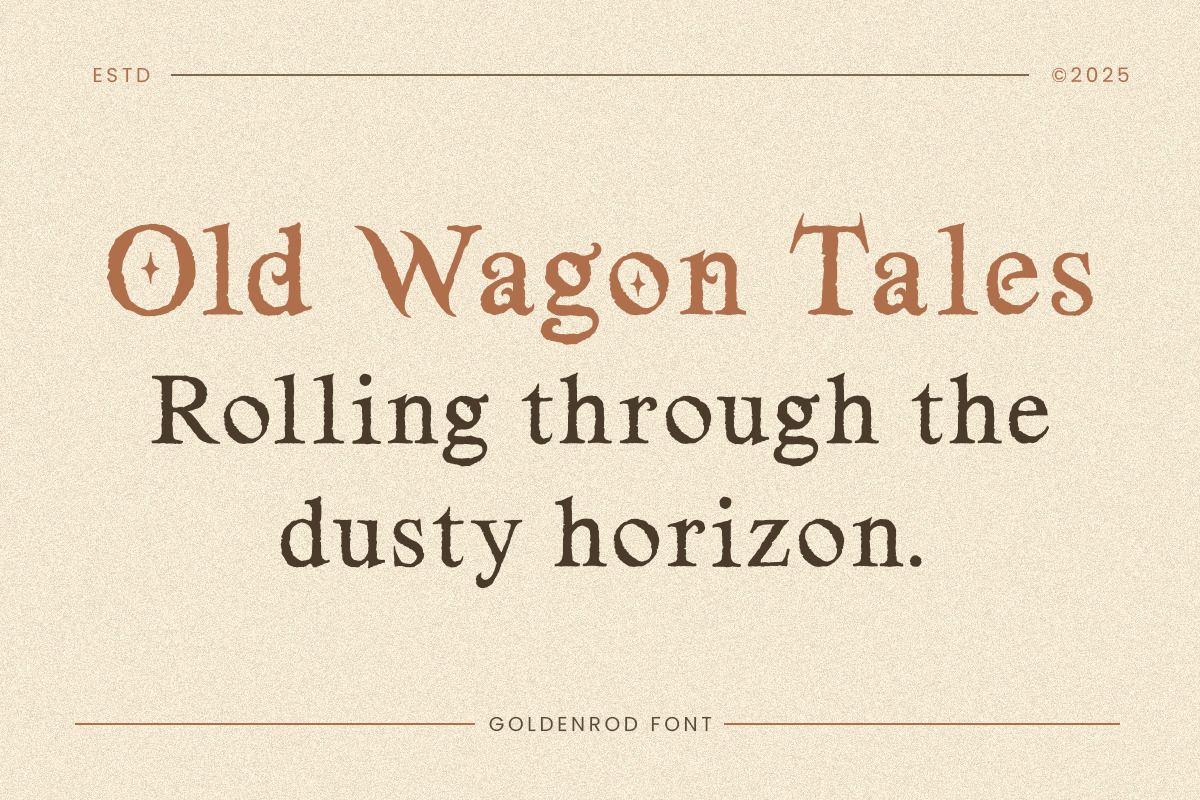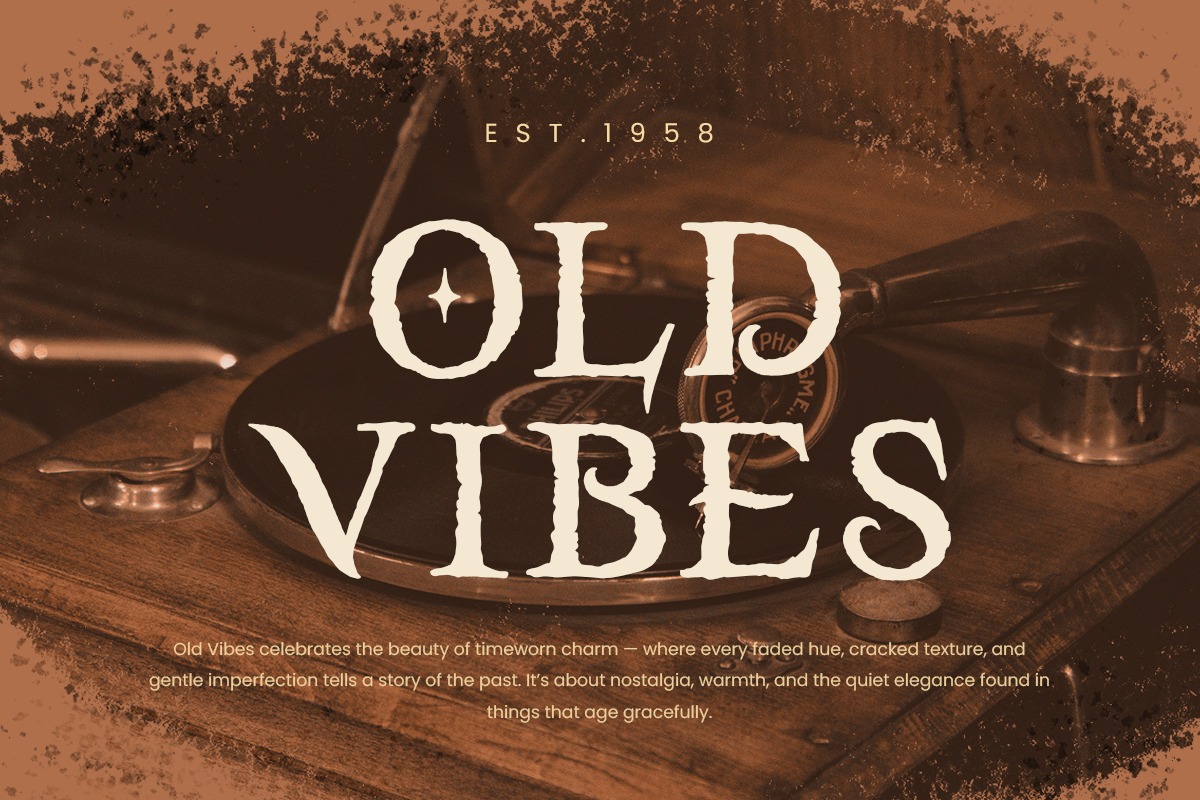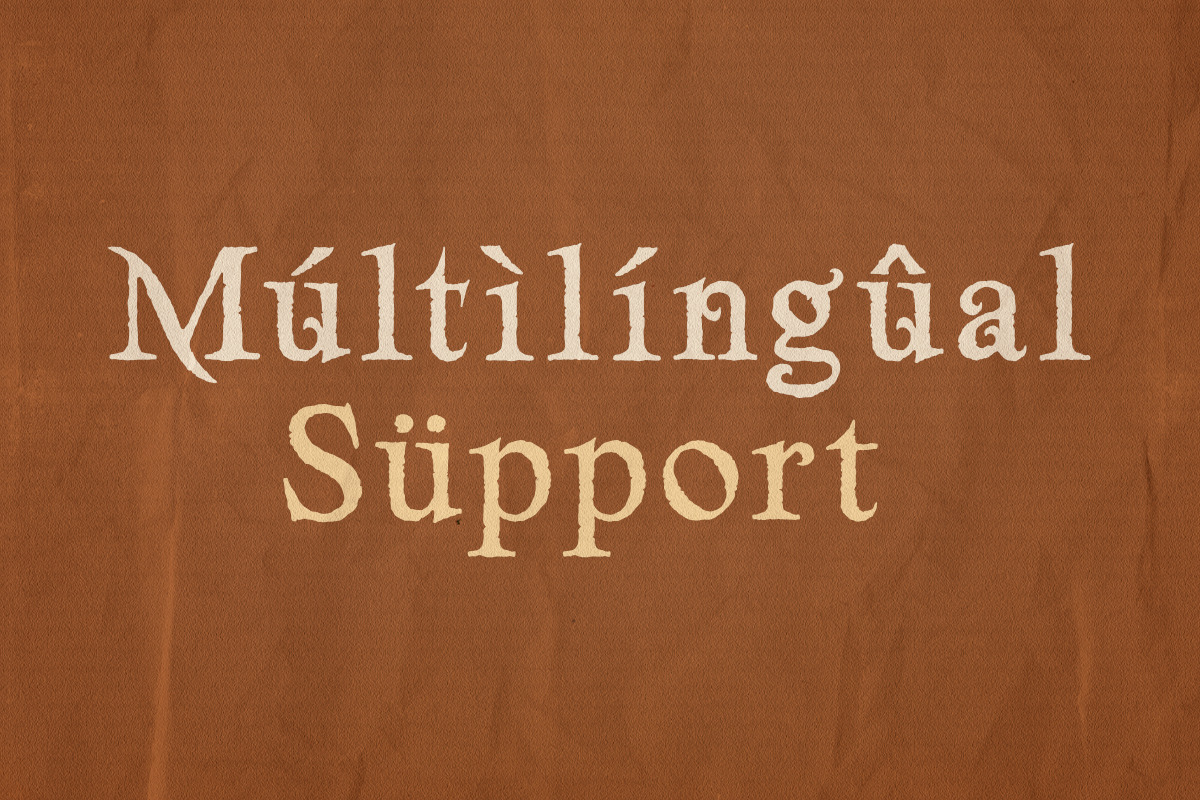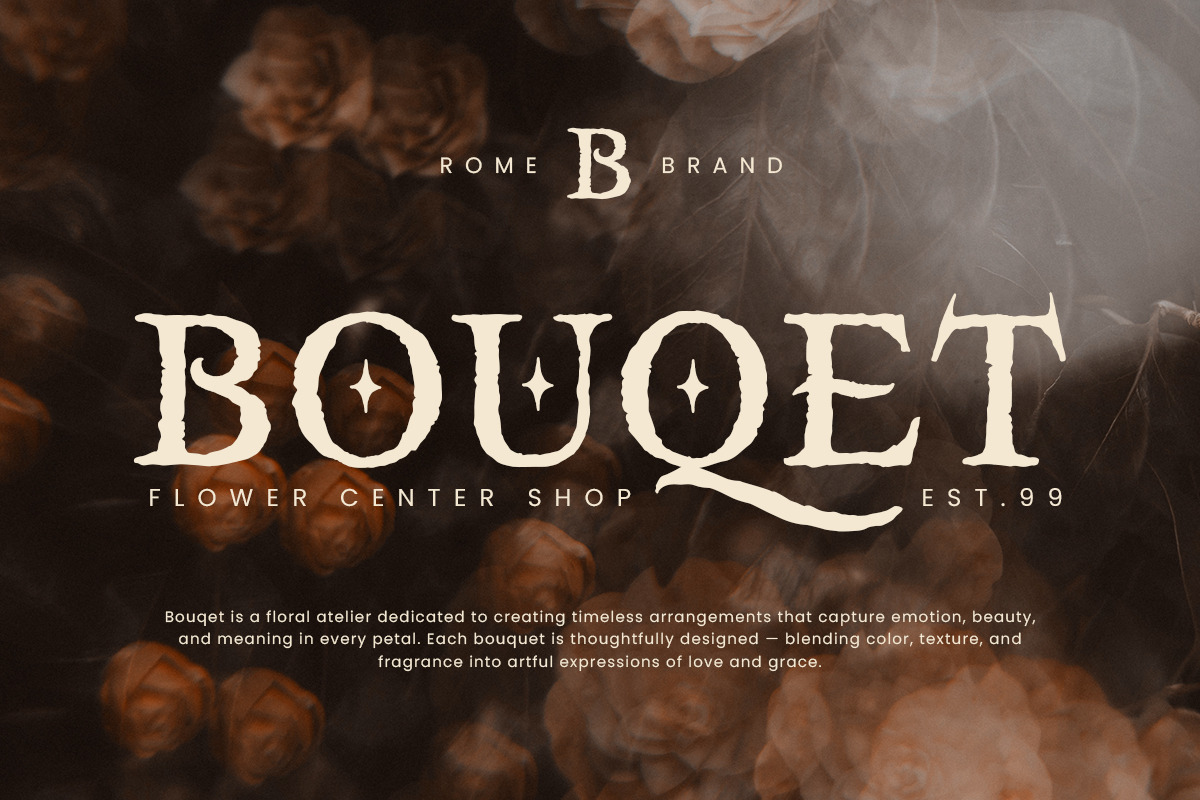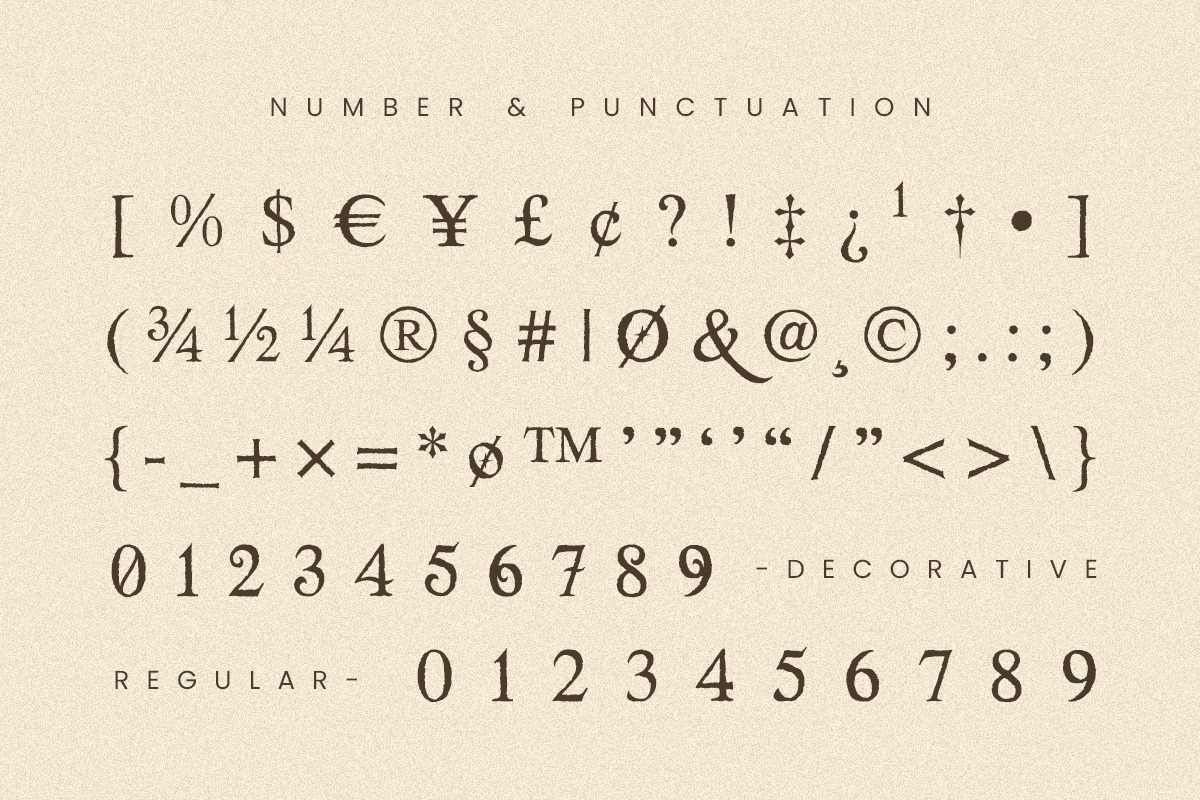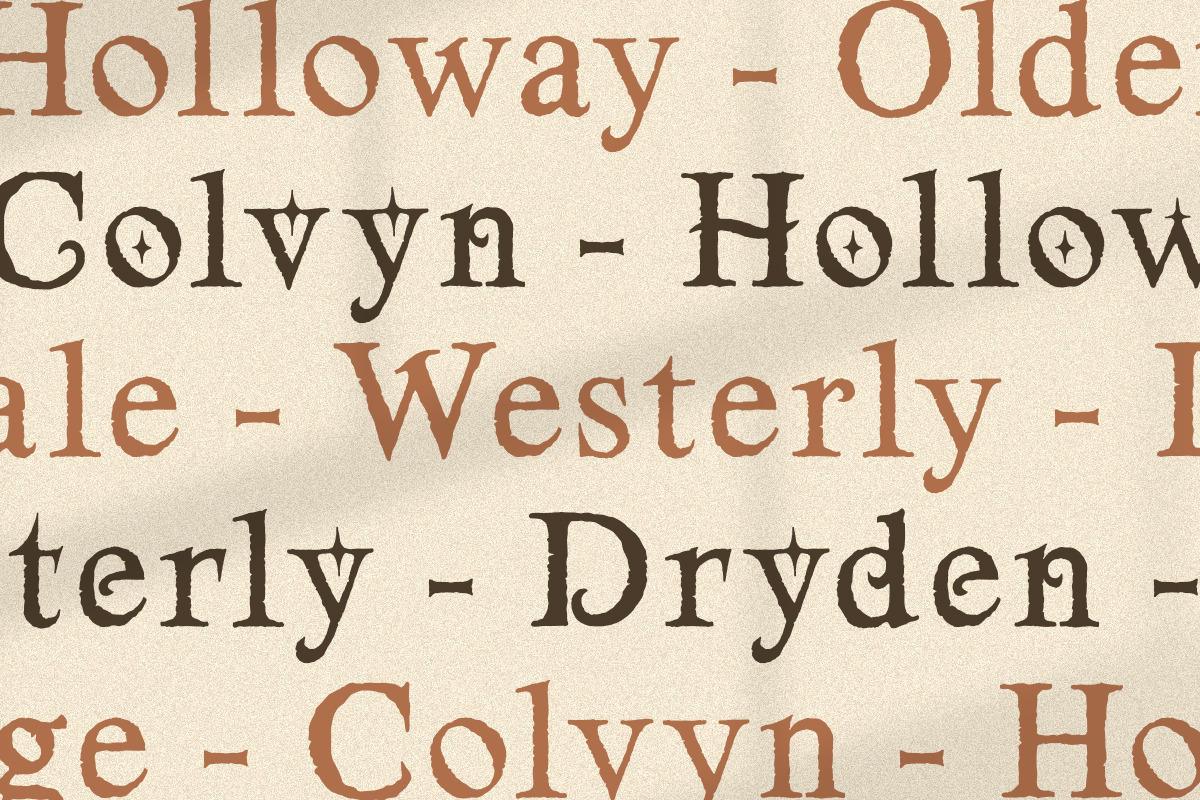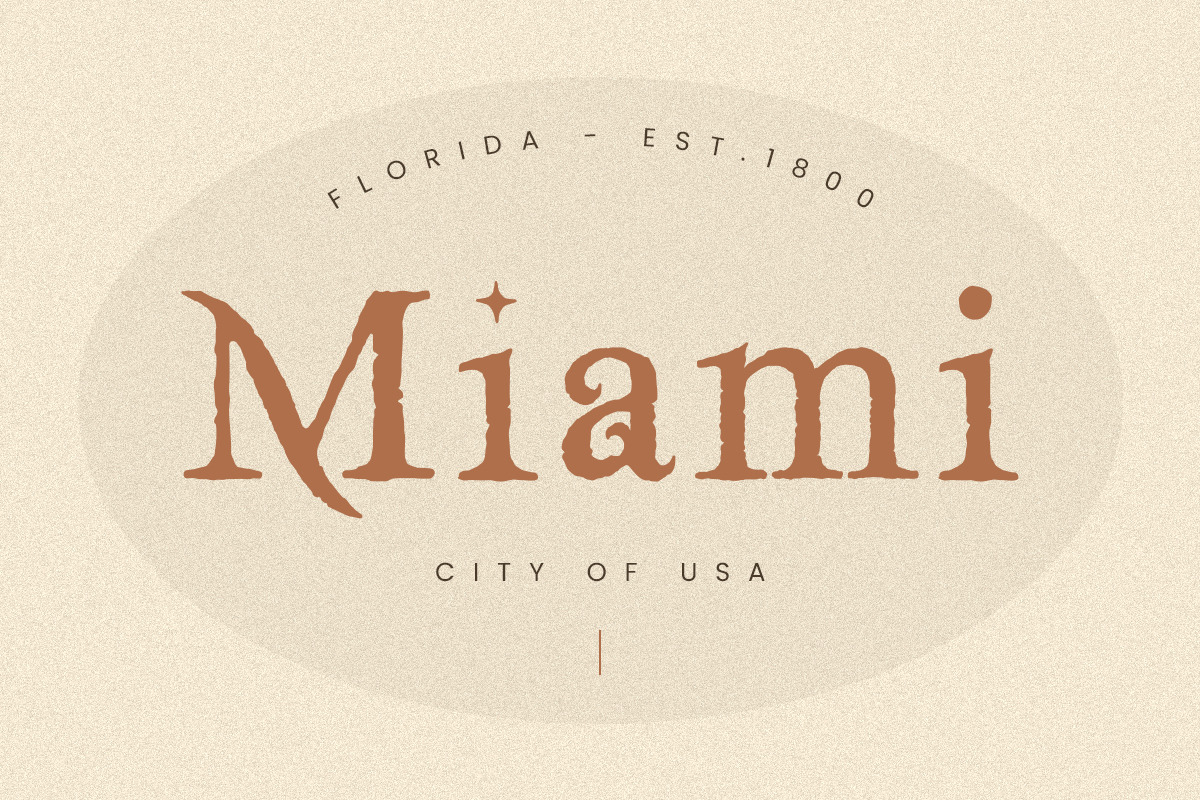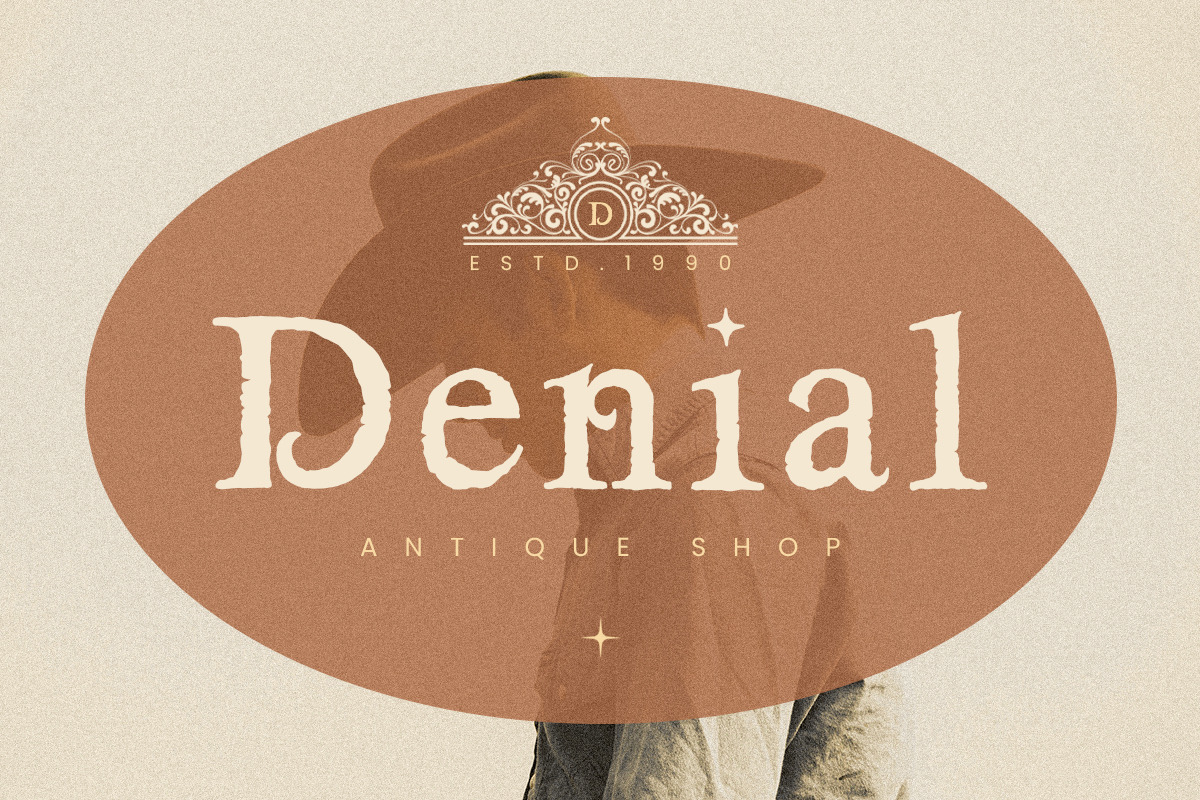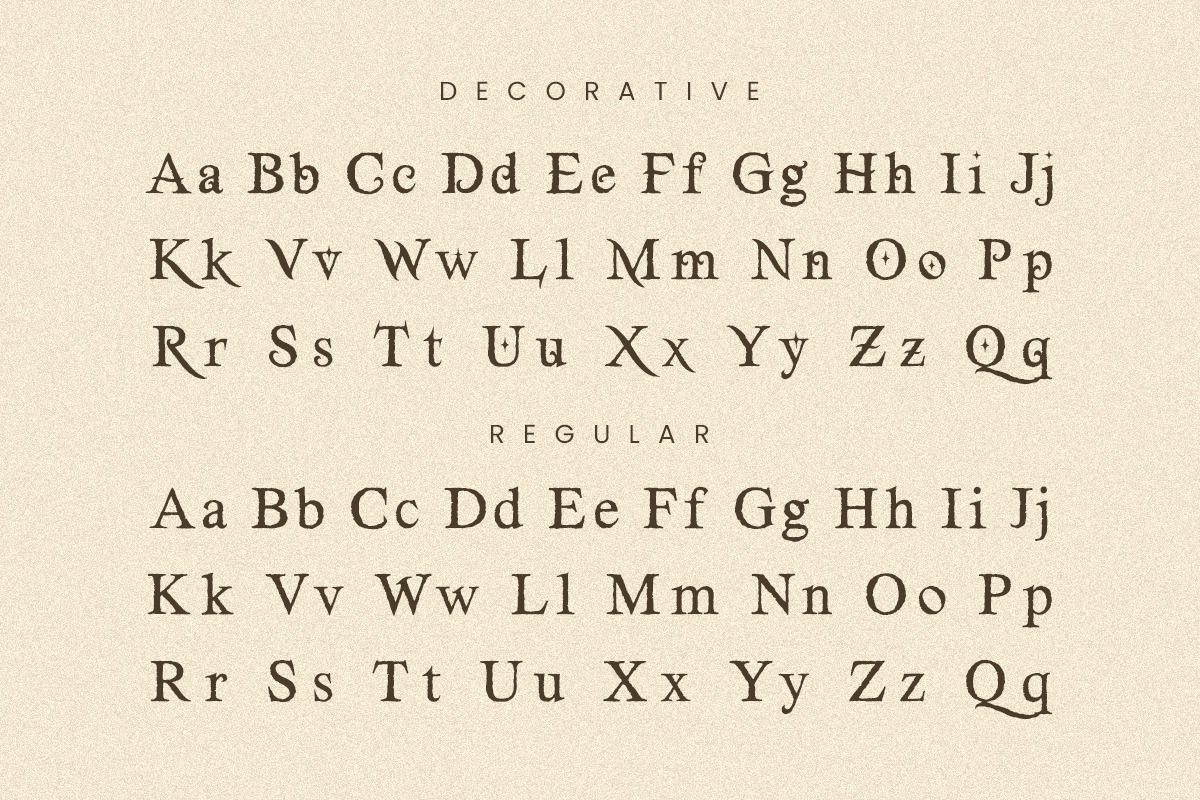
Goldenrod – Medieval Decorative
Goldenrod is a medieval-inspired decorative serif font designed to bring a warm, timeless, and classic character to your designs. Influenced by old-world typography and historical letterforms, Goldenrod blends traditional serif structures with subtle ornamental details, making it both elegant and distinctive. This typeface is ideal for branding projects, logo design, packaging, editorial layouts, book covers, posters, and vintage-style visuals that require a strong yet refined presence.
Goldenrod works beautifully in both display and headline settings, offering excellent readability while maintaining its decorative charm. With multilingual support, this font is suitable for a wide range of international projects. Whether you are creating fantasy themes, historical designs, or modern branding with a vintage touch, Goldenrod delivers a versatile and authentic medieval serif aesthetic.